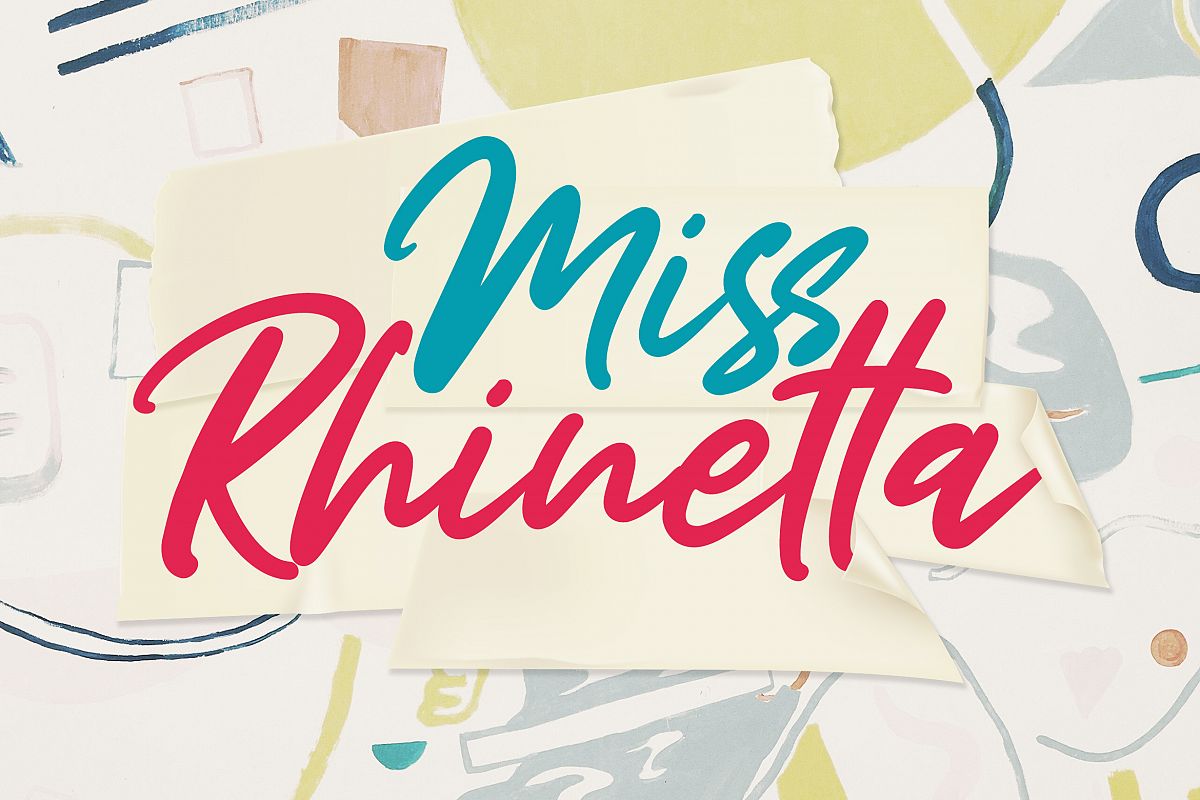
Miss Rhinetta
MissRhinetta-Regular
Introducing Miss Rhinetta Handwritten Font, script with unique strokes make it beautiful and look natural as written by hand.Miss Rhinetta is perfect for signature, branding, wedding, fashion, photography title, poster, social media, music album, book cover, packaging, handwritten quotes, greeting cards and advertising.